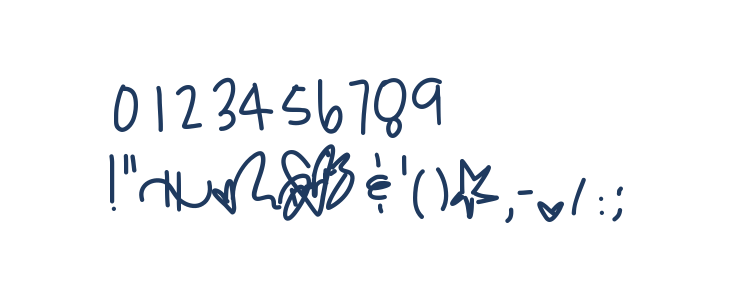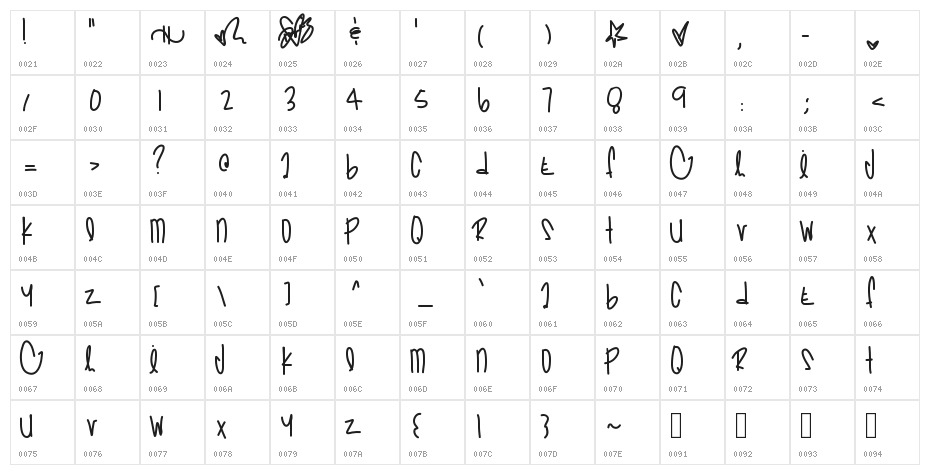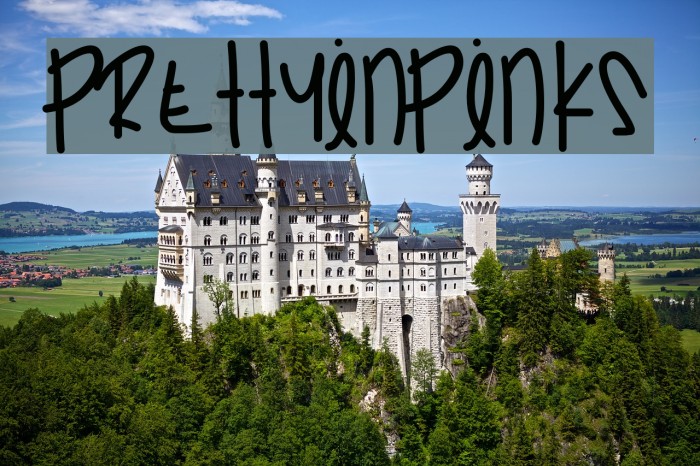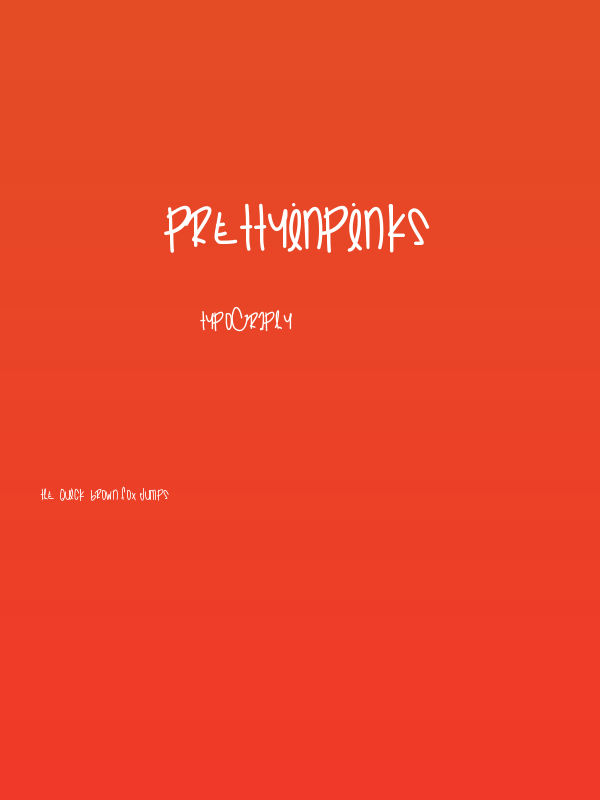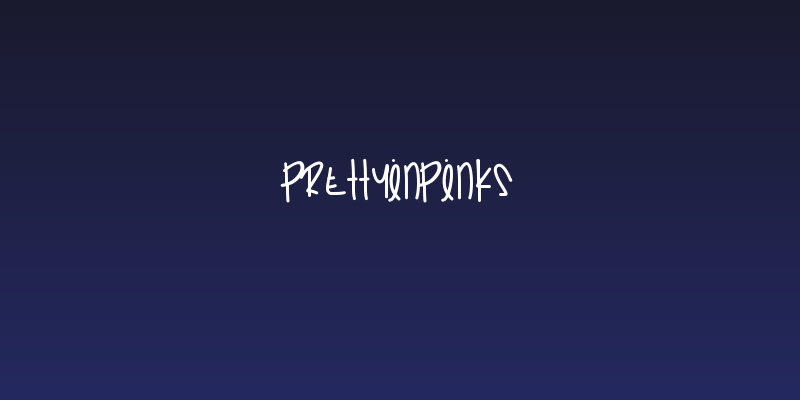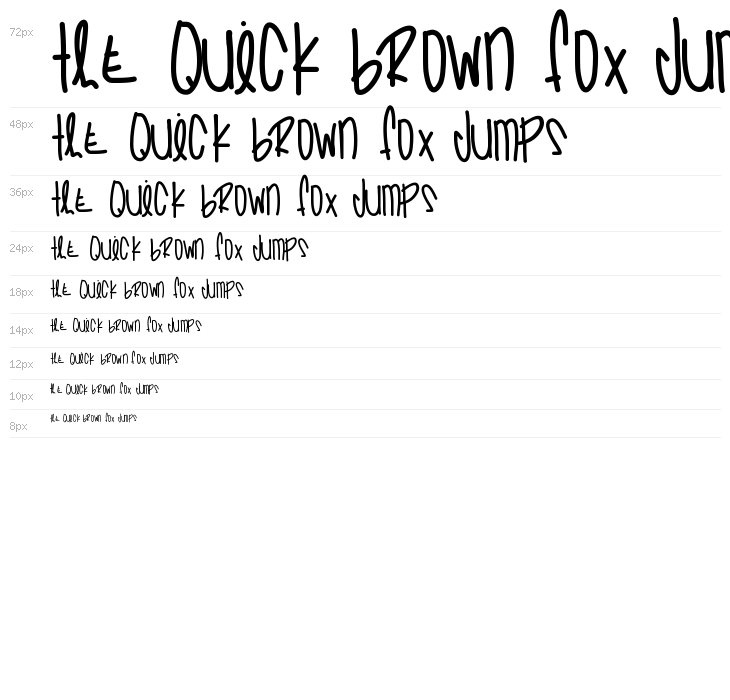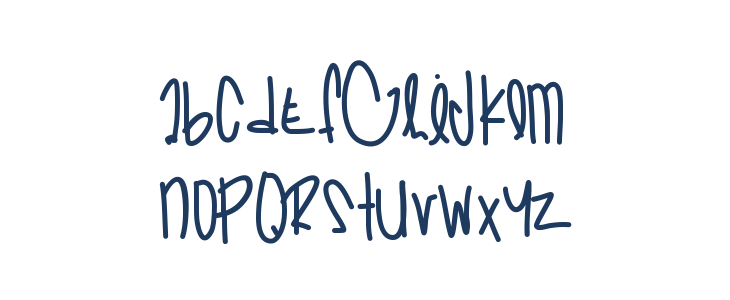
PrettyInPinks Font
PrettyInPinks Description
This playful and energetic font features a handwritten style with a casual and informal appearance. The letters are characterized by their tall, narrow forms and slightly uneven baseline, giving them a dynamic and lively feel. The strokes are smooth and fluid, with a consistent thickness that maintains readability while adding a touch of whimsy. The font includes both uppercase and lowercase letters, numerals, and a variety of special characters, making it versatile for various design needs. Its unique style is perfect for projects that require a personal and approachable touch.
| Proposed Projects | Ideal for greeting cards, children's books, playful branding, and social media graphics. |